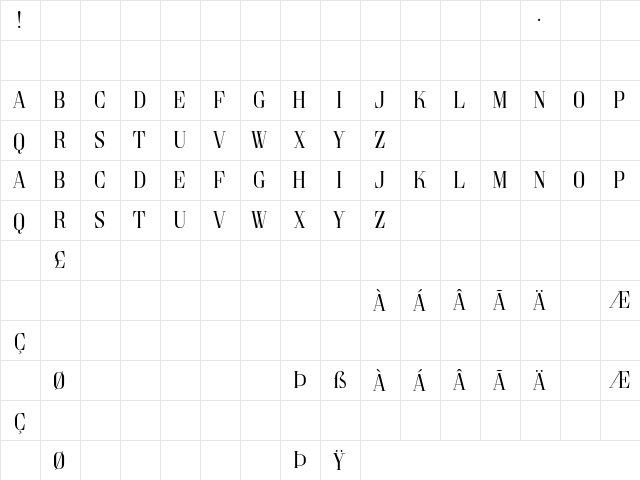
Goldoni Regular
Design Context for Goldoni Typeface
Goldoni takes a measured approach to typography — its balanced proportions and neutral character make it a reliable workhorse for both digital and print work.